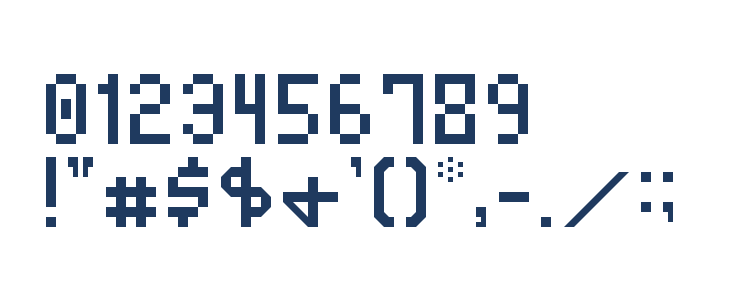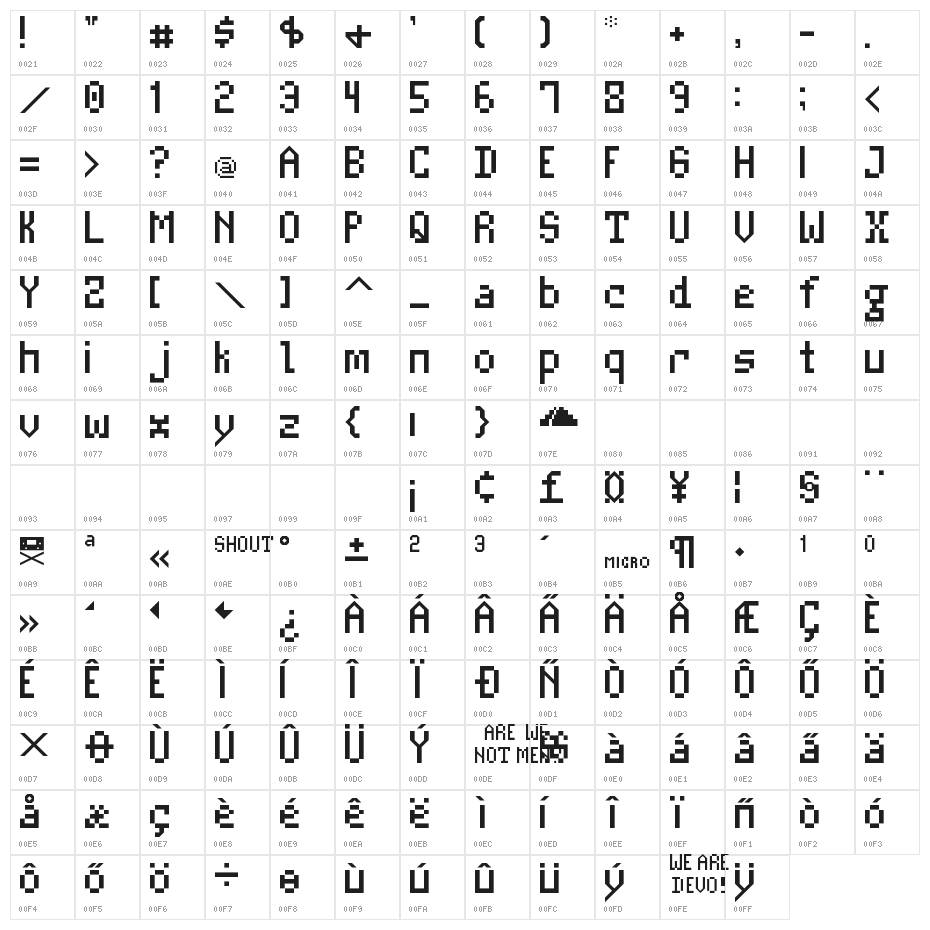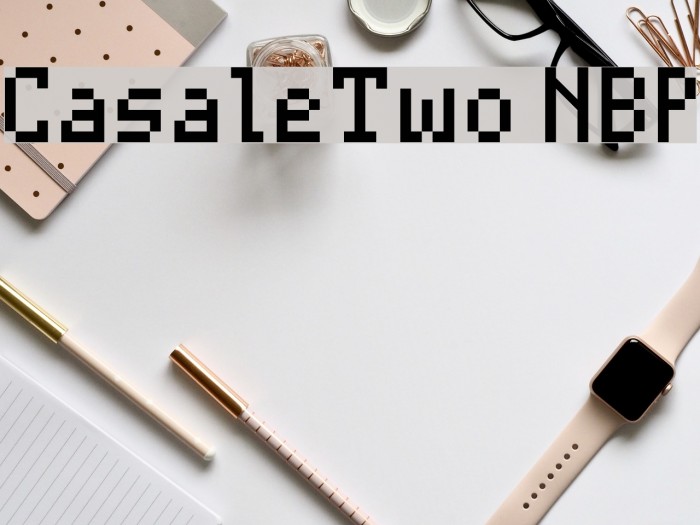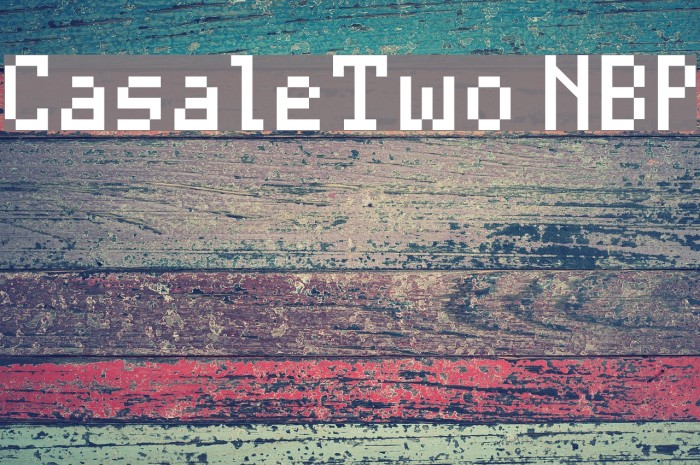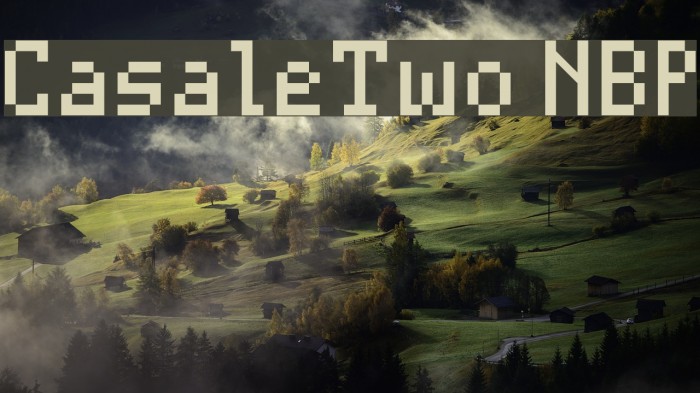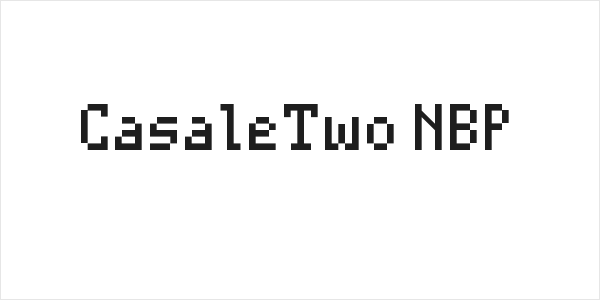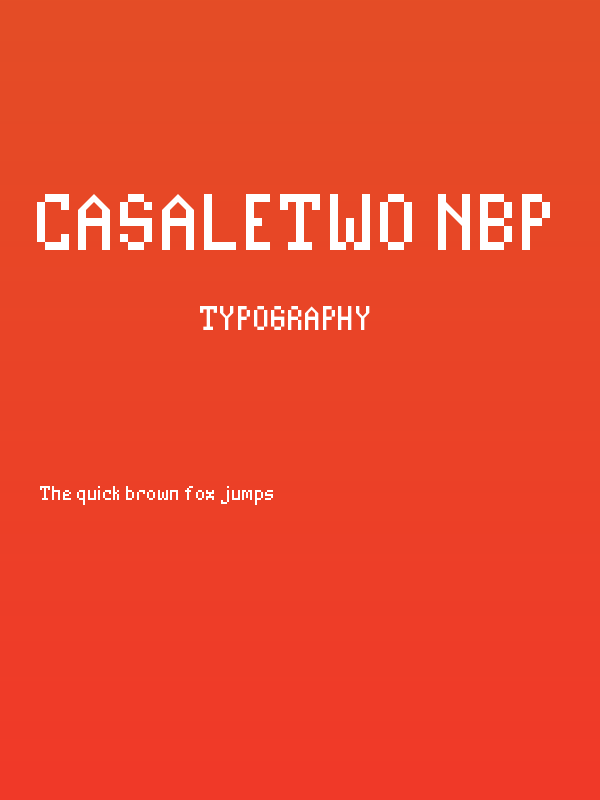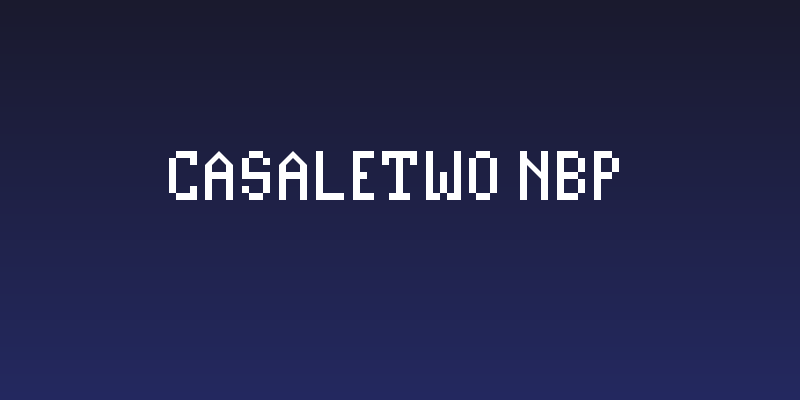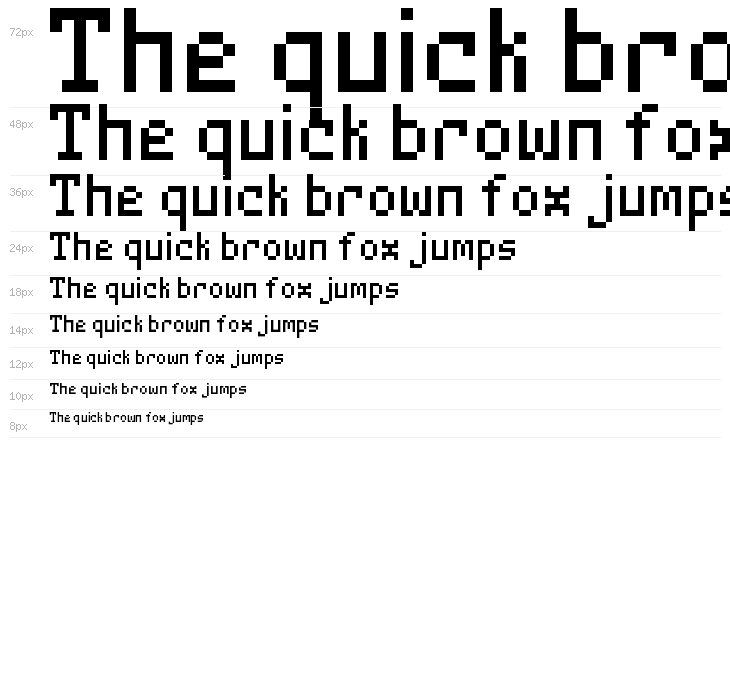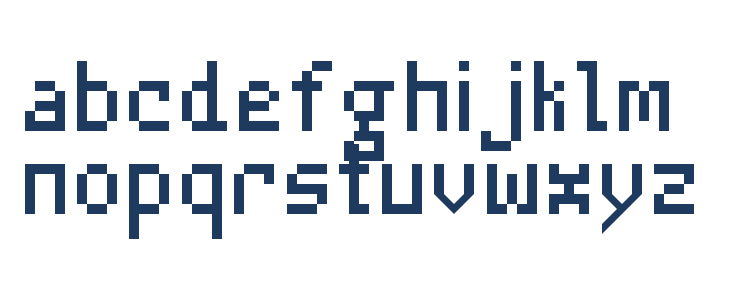
CasaleTwo NBP Font
CasaleTwo NBP Description
This font features a bold, geometric design with a pixelated, blocky appearance. Each character is constructed with sharp, angular lines, giving it a digital, retro aesthetic reminiscent of early computer graphics or arcade games. The uppercase and lowercase letters maintain a consistent width, contributing to a monospaced feel, although the font is not strictly monospaced. The numerals and special characters follow the same design principles, ensuring uniformity across all glyphs. This font's unique style makes it stand out, offering a nostalgic yet modern twist suitable for various creative applications.
| Overall Style | Retro, Digital |
| Use Case | Logos, Headlines, Digital Art |
| Proposed Projects | Ideal for video game design, digital art projects, retro-themed branding, and tech-related presentations. |